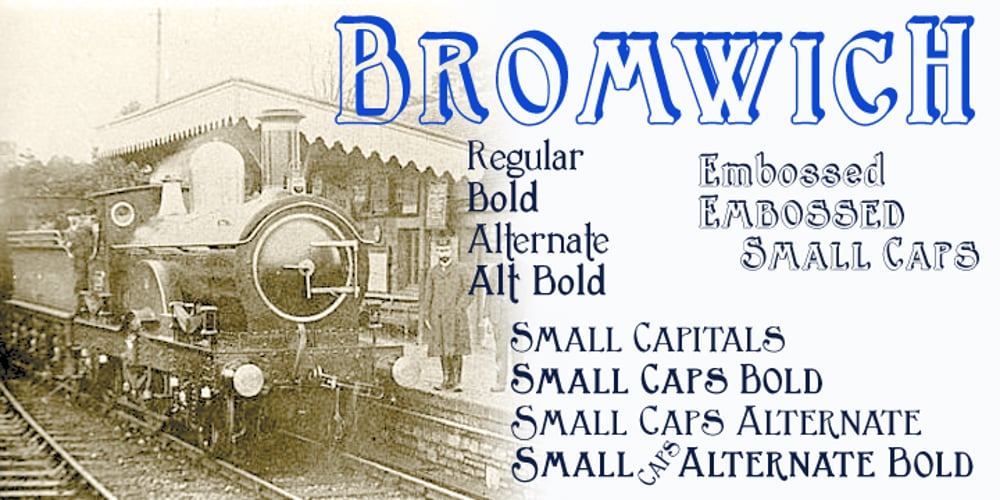
Bromwich Font Family was designed by Paul James Lloyd and published by Greater Albion Typefounders. Bromwich contains 10 styles and family package options. Bromwich is a piece of brand new Edwardian fun. In the spirit of railway travel posters and illustrated news journals, it’s a wonderful font for poster design, or for book covers and other work with a period theme. Need something for a menu or placecards for a period themed function? Designing a book cover for a period novel? Bromwich is the face for you. It’s offered in regular and alternate forms, with additional true small capital forms of both. Bring a bit of period flare to everything you do!